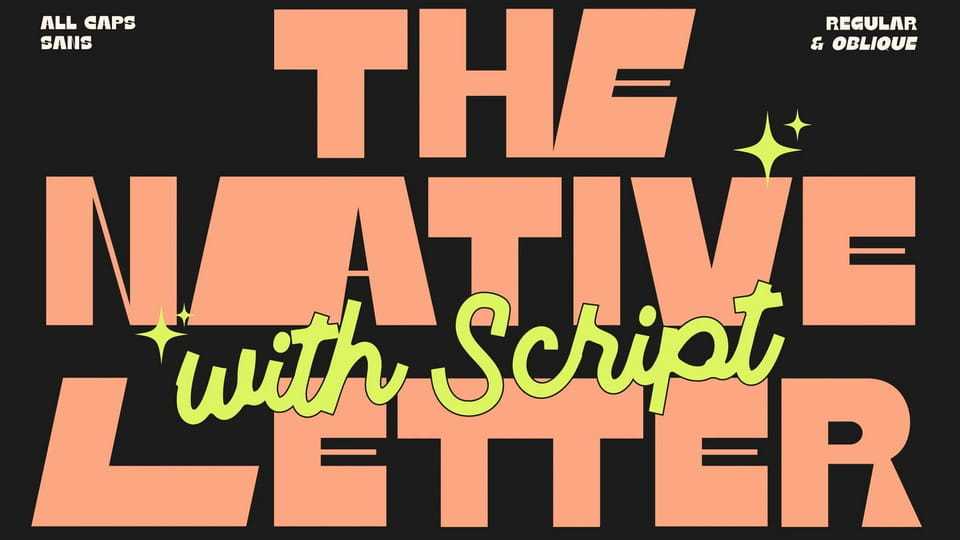
Download Native Letter font, a modern bold typeface built to deliver punchy headlines and sun-soaked vibes in one confident voice. Its blocky sans shapes land with strong visual weight, while the flowing script companion adds friendly motion that feels handcrafted.